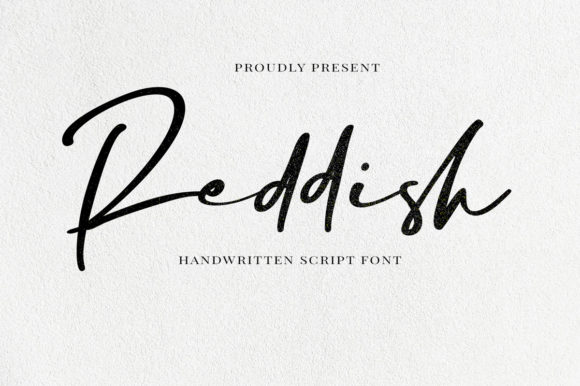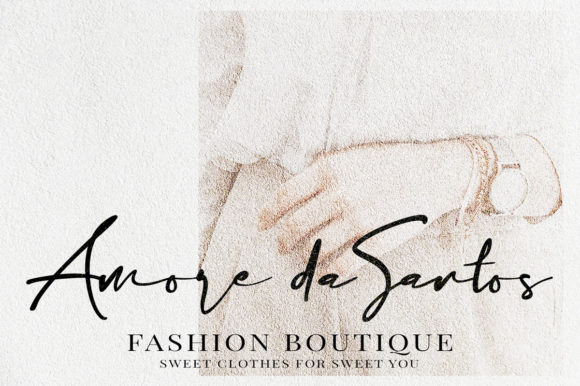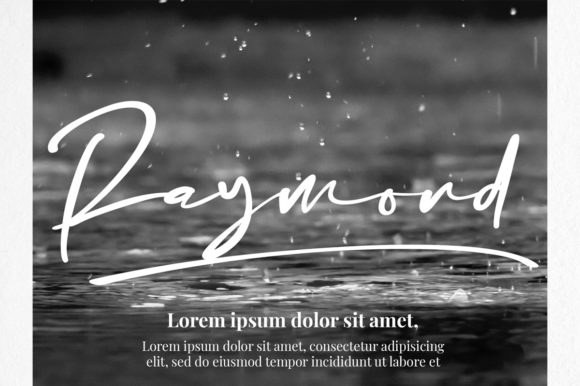
About Reddish Font
Reddish is a delicate, elegant and flowing handwritten font. It has chic and well designed characters and these aspects allow it to match a wide pool of designs. This font is PUA encoded which means you can access all of the glyphs and swashes with ease!Â